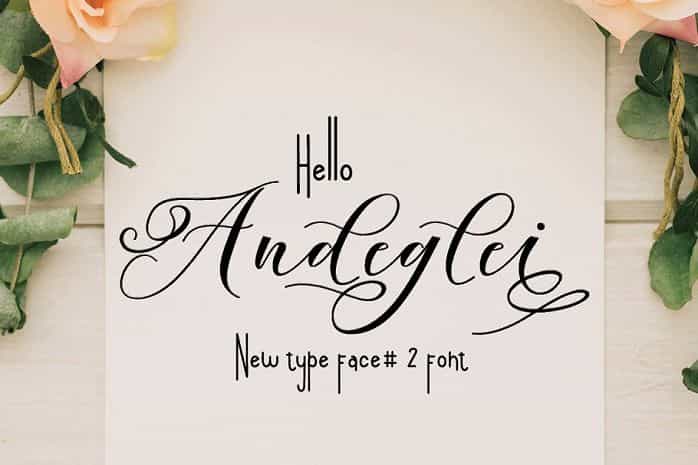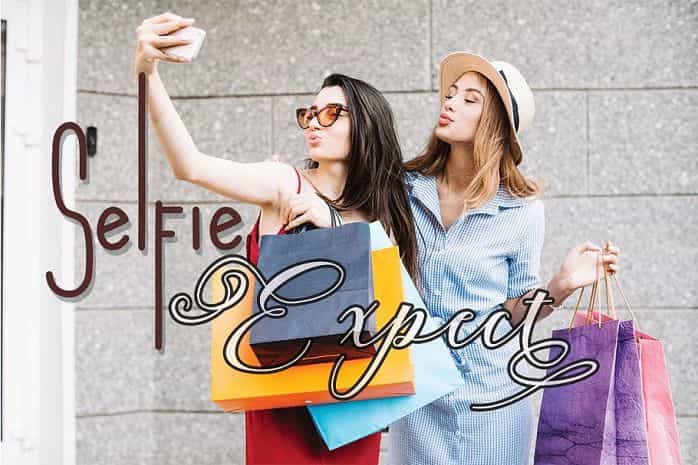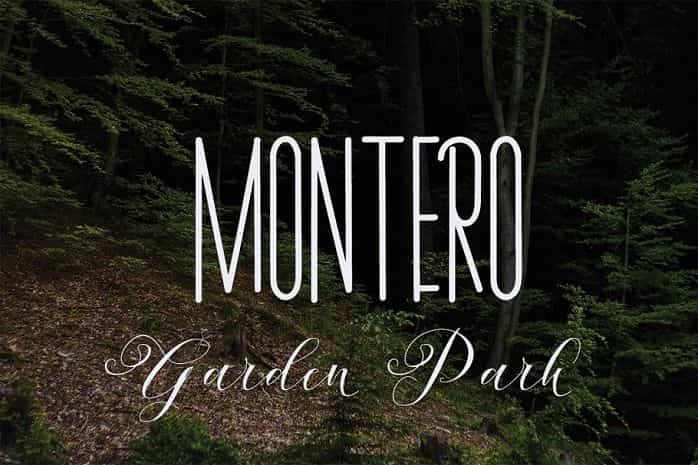
Introducing Andeglei Font. This Modern Calligraphy and sans typeface invites you to use it for different purposes like logo, card, wedding invitation, headings, signatures, t-shirt design etc.